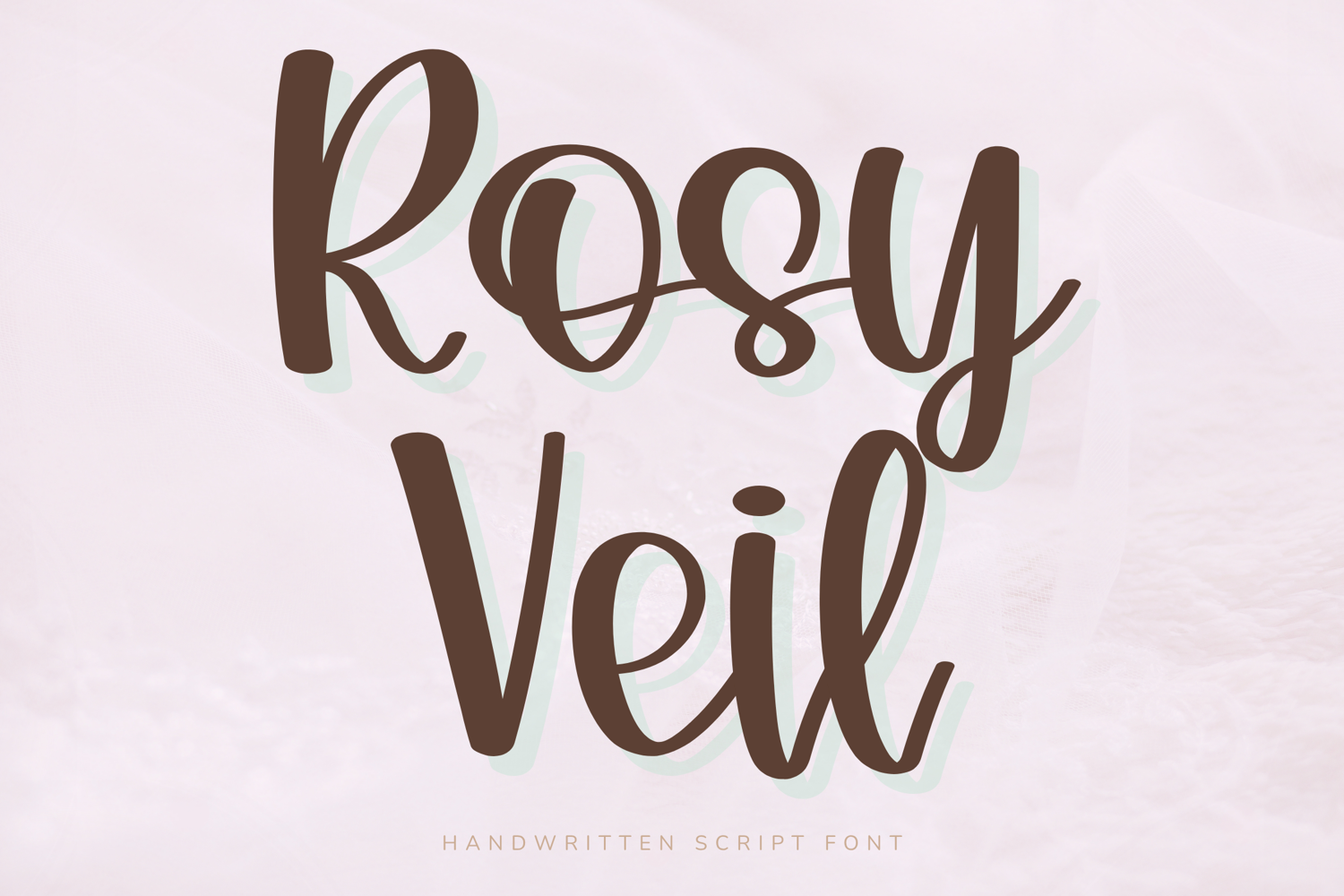
Rosy Veil - Handwritten Script Font
Rosy Veil is a graceful handwritten script font with a soft feminine charm and a modern handcrafted feel. Featuring bold rounded strokes, smooth curves, and elegant flowing letterforms, this font creates a warm and sophisticated aesthetic that feels both playful and refined.
Its highly readable handwritten style makes Rosy Veil perfect for Cricut projects, planner covers, journal pages, stickers, branding, packaging, wedding designs, and social media graphics. The balanced structure ensures excellent visibility while maintaining a delicate and stylish personality.
Key Features:
Uppercase and lowercase letters
Numbers and punctuation
Bold handwritten script style
Smooth and elegant letterforms
Perfect For:
Cricut and Silhouette projects
Stickers and printables
Wedding invitations
Product packaging
Logo & Branding
Social media graphics
Planner and journal designs
Best Use Cases:
Wedding stationery
Candle labels
Boutique branding
Stickers and printables
Product packaging
Planner covers
Design Style:
Rosy Veil combines playful handwritten energy with refined feminine elegance. The rounded shapes and flowing curves create a versatile font that works beautifully for both everyday creative projects and premium branding.